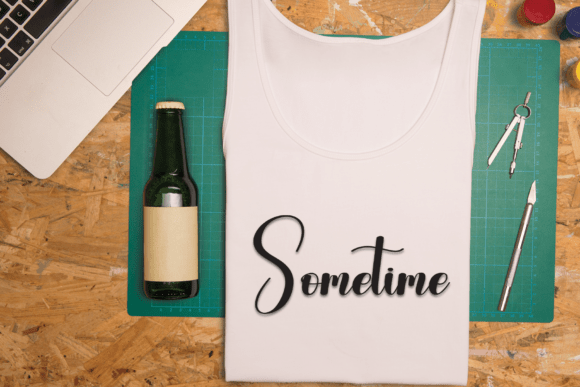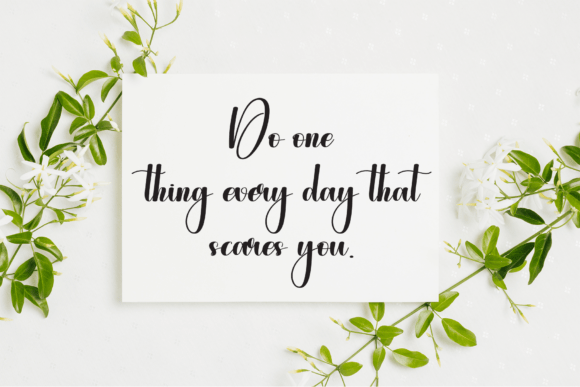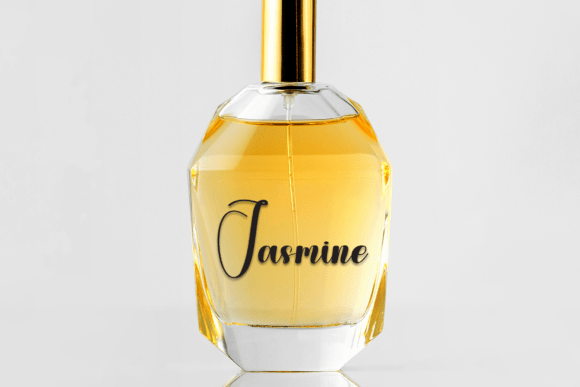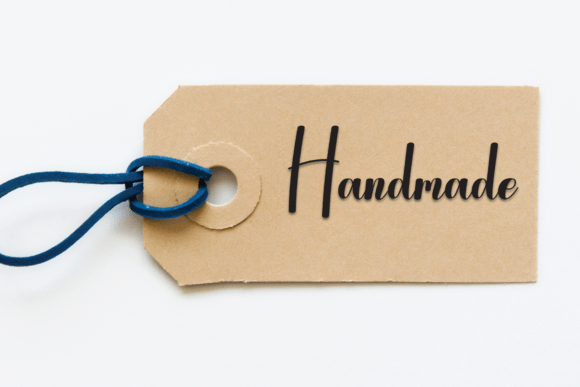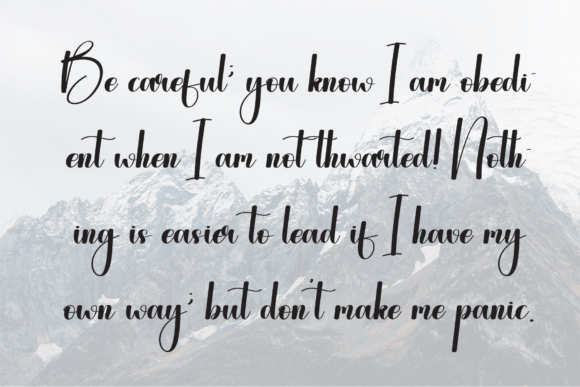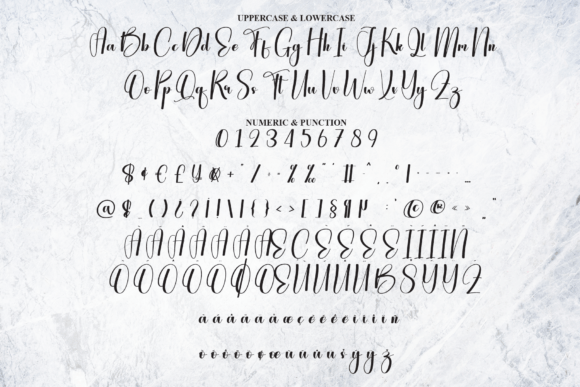
Frostice Font: Elevate Your Designs with Artistic Flair and Contemporary Elegance
In the world of typography, few fonts manage to capture the perfect blend of artistic expression and modern sophistication. Frostice Font is one such exceptional typeface that brings a refreshing breeze of creativity to the table. This stylish script font is designed to infuse your designs with a vibrant, hand-painted feel, making it an ideal choice for designers and crafters looking to add a touch of elegance and flair to their projects.
The Artistic Essence of Frostice Font
Frostice Font is characterized by its fluid brush strokes, dynamic curves, and expressive letterforms. These features collectively give the font a lively, organic feel that is reminiscent of hand-painted calligraphy, but with a distinctly modern twist. The fluidity of the brush strokes adds a natural, effortless quality to the text, making it perfect for designs that require a personal touch. Whether you’re working on a logo, invitation, packaging, or social media graphics, Frostice Font brings a level of sophistication and creativity that is hard to achieve with standard typefaces.
Versatility and Application
One of the standout qualities of Frostice Font is its versatility. Its unique blend of artistic flair and contemporary elegance makes it suitable for a wide range of design applications. Here are some of the key areas where Frostice Font truly shines:
- Logos: Create memorable and impactful logos that stand out from the crowd. Frostice Font’s distinctive style ensures that your brand’s identity is conveyed with both creativity and sophistication.
- Invitations: Add a touch of elegance to your event invitations, making them truly special and eye-catching. Whether it’s a wedding, birthday, or corporate event, Frostice Font sets the right tone.
- Packaging: Elevate your product packaging with a font that exudes quality and style. Frostice Font can help your product stand out on crowded shelves.
- Social Media Graphics: Enhance your social media presence with graphics that are both visually appealing and engaging. Frostice Font adds a creative touch to posts, banners, and stories.
Why Choose Frostice Font?
With so many fonts available, what makes Frostice Font a preferred choice for designers and crafters? Here are a few compelling reasons:
- Unique Aesthetic: Frostice Font offers a unique aesthetic that combines the charm of hand-painted calligraphy with the sleekness of modern design. This makes it a great choice for projects that require a standout look.
- Ease of Use: Despite its sophisticated appearance, Frostice Font is easy to use and integrates seamlessly into various design tools and software.
- High Readability: While it boasts a stylish and artistic design, Frostice Font maintains high readability, ensuring that your message is conveyed clearly and effectively.
- Customization: The font comes with a range of customization options, allowing you to tweak it to fit your project’s specific needs and make it truly unique.
Tips for Maximizing Frostice Font’s Potential
To get the most out of Frostice Font, consider the following tips:
- Pair it Wisely: Combine Frostice Font with complementary fonts to create visual interest and hierarchy in your designs.
- Experiment with Colors: Take advantage of Frostice Font’s vibrant character by experimenting with different colors and gradients that enhance its artistic feel.
- Play with Sizes: Use varying font sizes to add emphasis and create a dynamic look in your designs.
- Emphasize Expressive Elements: Highlight the expressive letterforms and fluid strokes by using them as focal points in your design.
Frostice Font is more than just a typeface; it’s a design statement. With its stylish script, fluid brush strokes, and expressive letterforms, it brings a unique blend of artistic flair and contemporary elegance to any project. Whether you’re a designer looking to elevate your branding, a crafter aiming to add a personal touch to your creations, or a social media enthusiast seeking to make your graphics stand out, Frostice Font is an invaluable tool in your creative arsenal. Embrace the creative possibilities with Frostice Font and watch your designs transform with a touch of sophistication and flair.